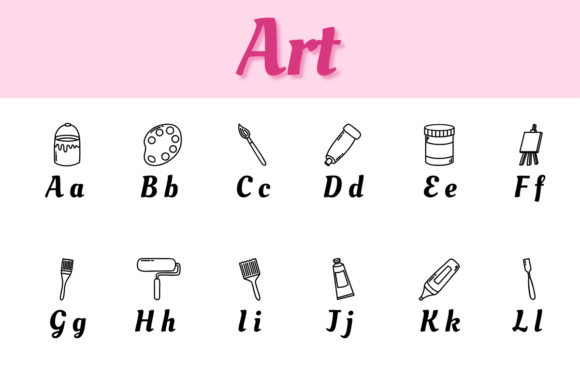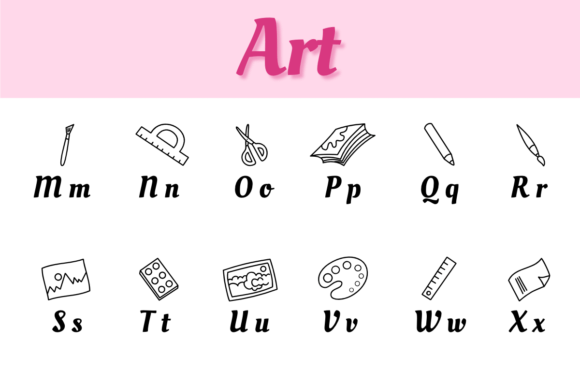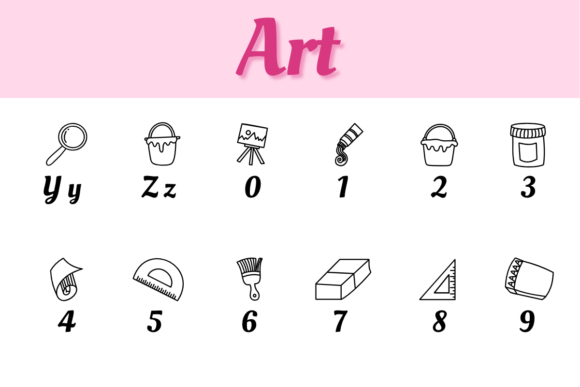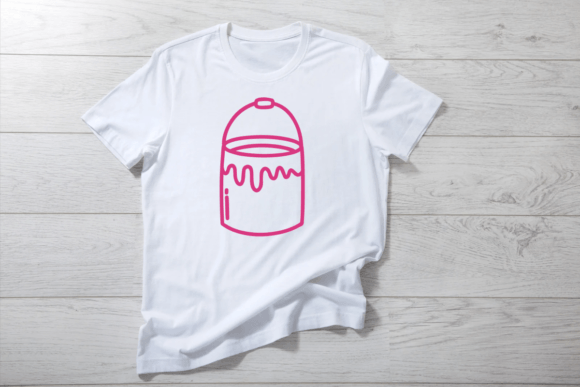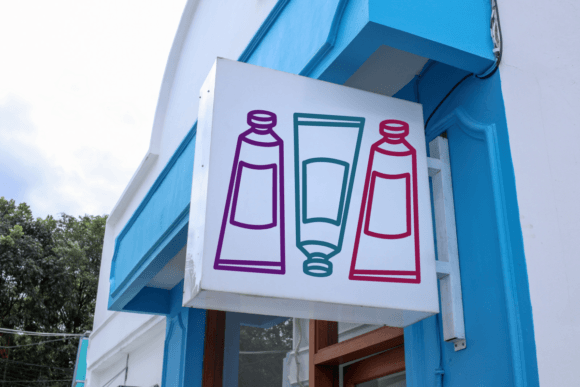
The Art of Self-Expression: Unlocking Creativity with Art Doodle Font
Have you ever found yourself staring at a blank page, wondering where to start your next creative project? You’ve got a spark of inspiration, but it’s hard to put into words. For many designers and artists, this is a familiar feeling – and it’s exactly where the Art Doodle Font comes in.
This unique font is designed to bring a touch of whimsy and fun to your projects. By incorporating small pictures and drawings, called dingbats, instead of regular letters and numbers, the Art Doodle Font adds a playful and artistic twist to your work. From paintbrushes to palettes, the font features a range of art-related items that will delight both designers and art enthusiasts alike.
For designers, the Art Doodle Font is a valuable tool for adding personality and flair to their projects. Whether you’re creating a logo, flyer, or social media post, this font is sure to bring a smile to your audience’s faces and make your work stand out from the crowd.
- Font Styles: The Art Doodle Font comes in 5 different styles, including Regular, Bold, Italic, Bold Italic, and Outline, offering users a variety of options to customize their designs.
- Character Set: The Art Doodle Font includes a comprehensive character set, including uppercase and lowercase letters, numbers, and punctuation marks, as well as special characters and symbols.
- Unique Characteristics: The Art Doodle Font features a unique, hand-drawn design with irregular shapes and lines, giving it a distinctive and creative look that sets it apart from other fonts.
Designer Review: Art Doodle Font
I recently had the chance to work with the Art Doodle Font, and I must say it’s a mixed bag. Let’s dive into the good, the bad, and the overall impression.
- The Art Doodle Font is highly customizable, with a wide range of styles and sizes to choose from.
- The font is perfect for creative projects, such as illustrations, graphics, and branding materials.
- The font is also highly legible, making it a great choice for body text and headings.
- The font may not be the best choice for formal or professional projects, as it has a playful and whimsical feel.
- The font can be quite heavy, which may not be suitable for smaller text sizes.
- The font is not suitable for use in very small sizes, as the letters can become difficult to read.
Overall, I would give the Art Doodle Font 3.5 out of 5 stars. While it’s a great choice for creative projects, it may not be the best fit for more formal or professional work. With some careful selection and customization, however, it can be a great addition to any design project.
Use the Art Doodle Font sparingly to add a touch of whimsy and creativity to your design. Experiment with different font sizes and colors to create visual interest. Use the font in conjunction with other creative elements, such as illustrations and graphics, to create a unique and engaging design.
The Art Doodle Font is perfect for:
- Children’s book illustrations and storybooks
- Food and product labeling
- Marketing and advertising materials